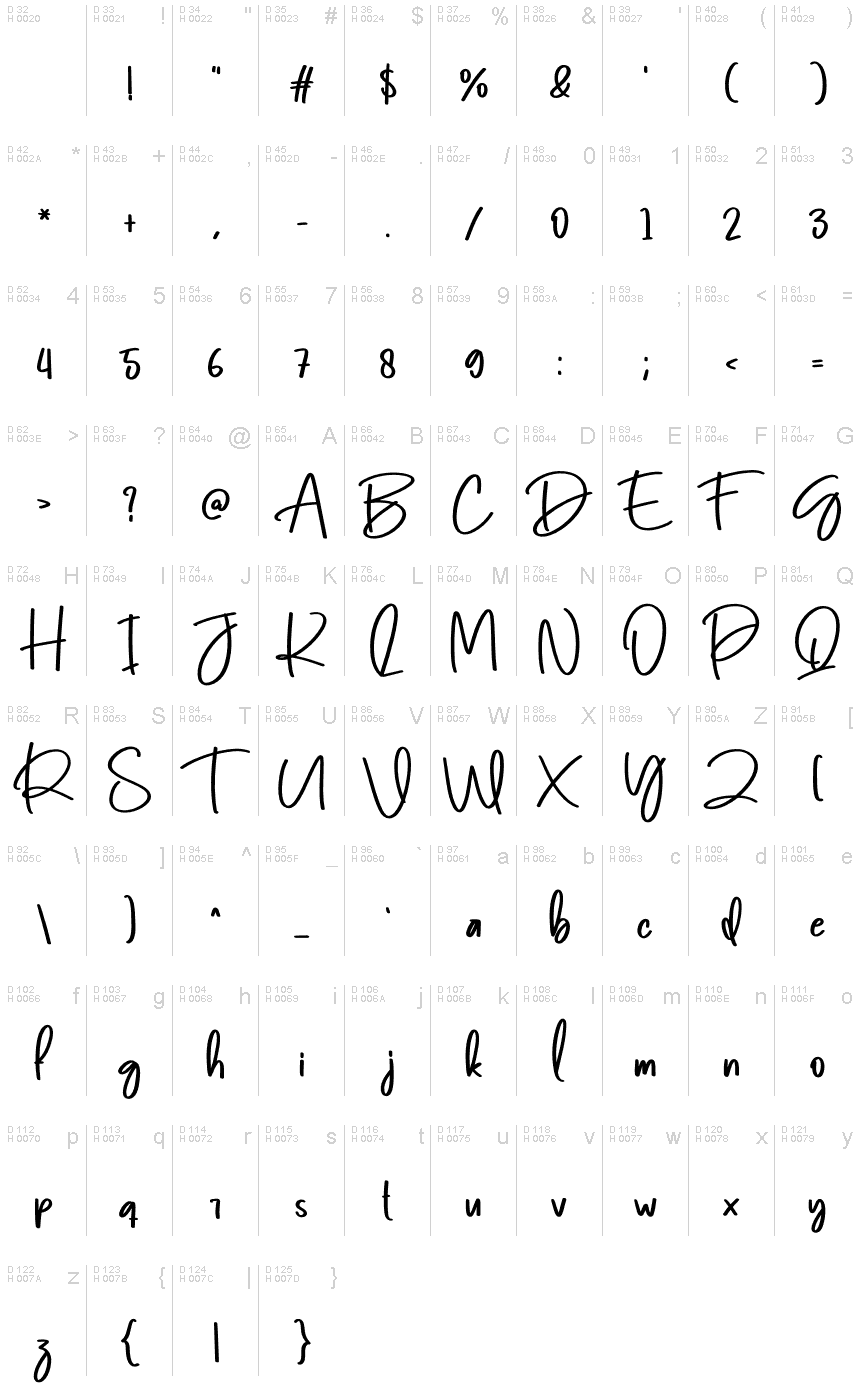
Weed
Weed, a charming handwritten font by Scratchones, adds a touch of whimsy to your design projects.
Its semi-light weight lends an air of elegance and delicacy, making it perfect for wedding invitations and romantic stationary. The natural flow and organic feel of Weed make it ideal for nature-inspired branding materials such as eco-friendly products or outdoor adventure websites. With its playful yet refined style, this font is also well-suited for children's book illustrations or quirky logo designs that aim to capture attention with a hint of artistic flair.
The latest style letters are perfect for wall displays, wedding invitations, social media post logos, advertisements, product packaging, product designs, labels, photography, watermarks, invitations, stationery, and any project that requires taste handwriting.